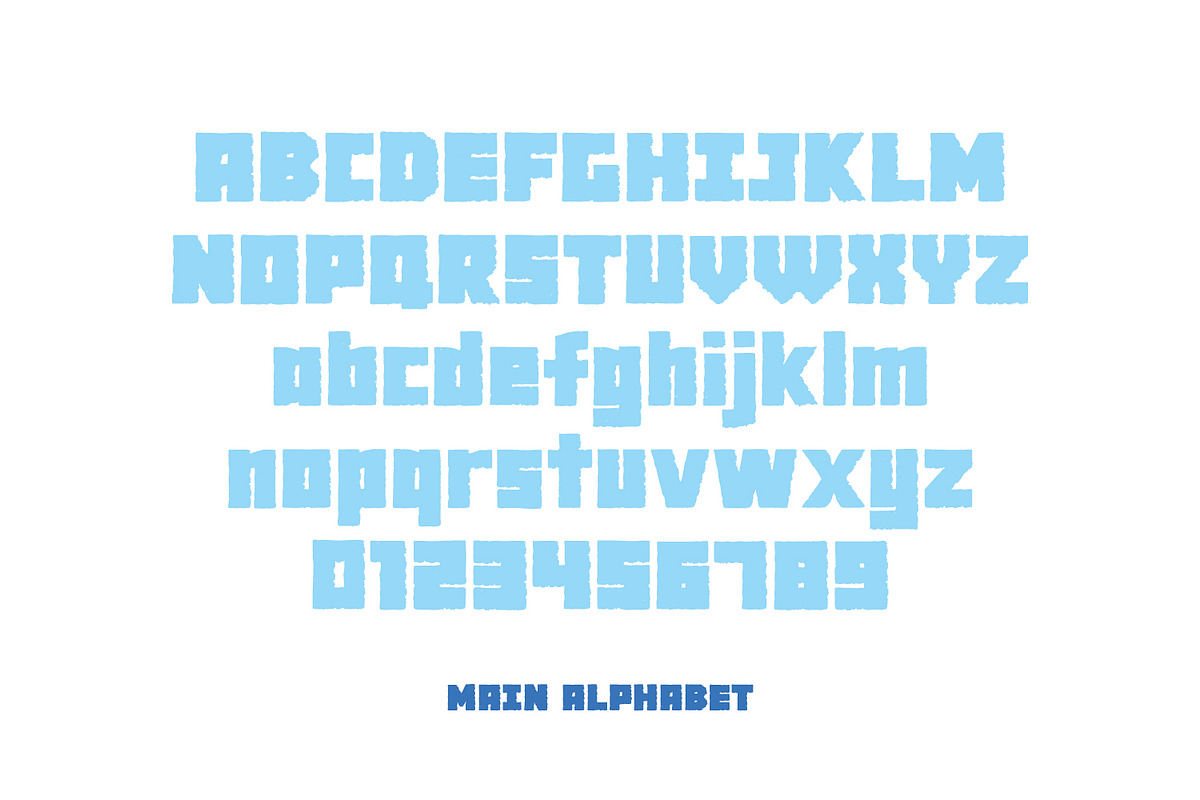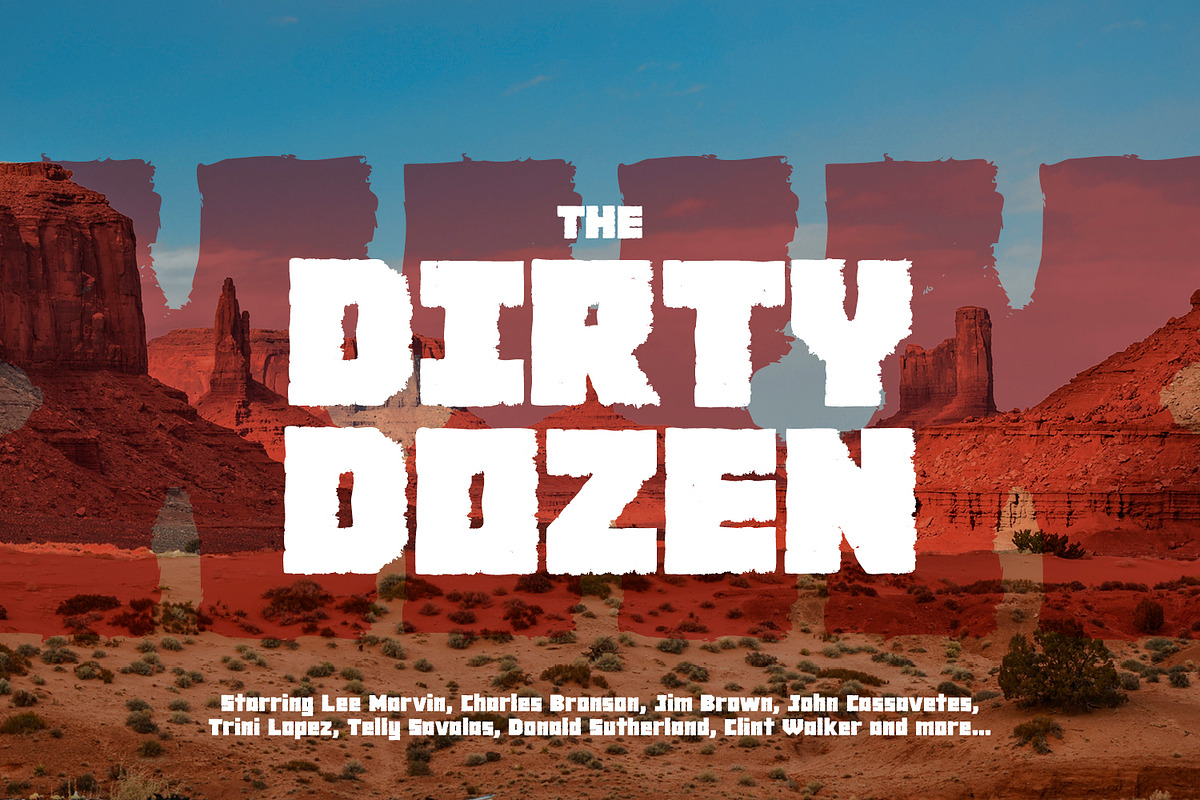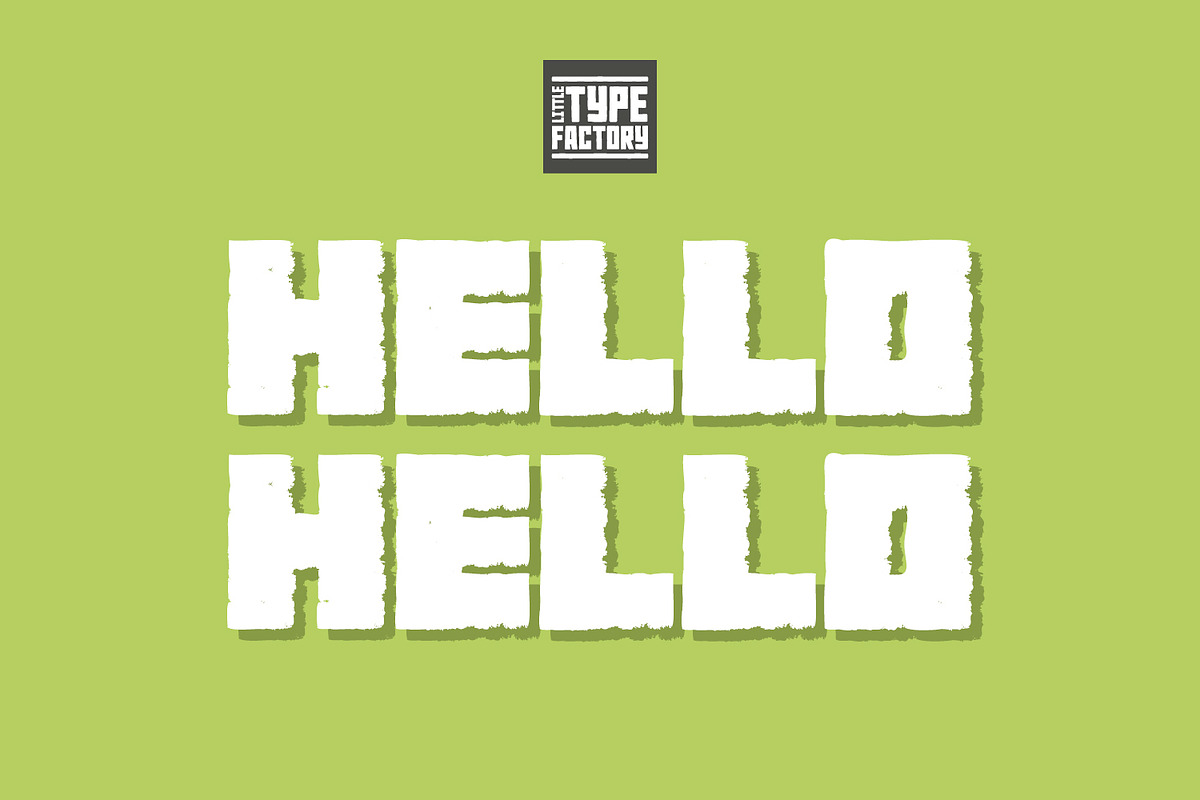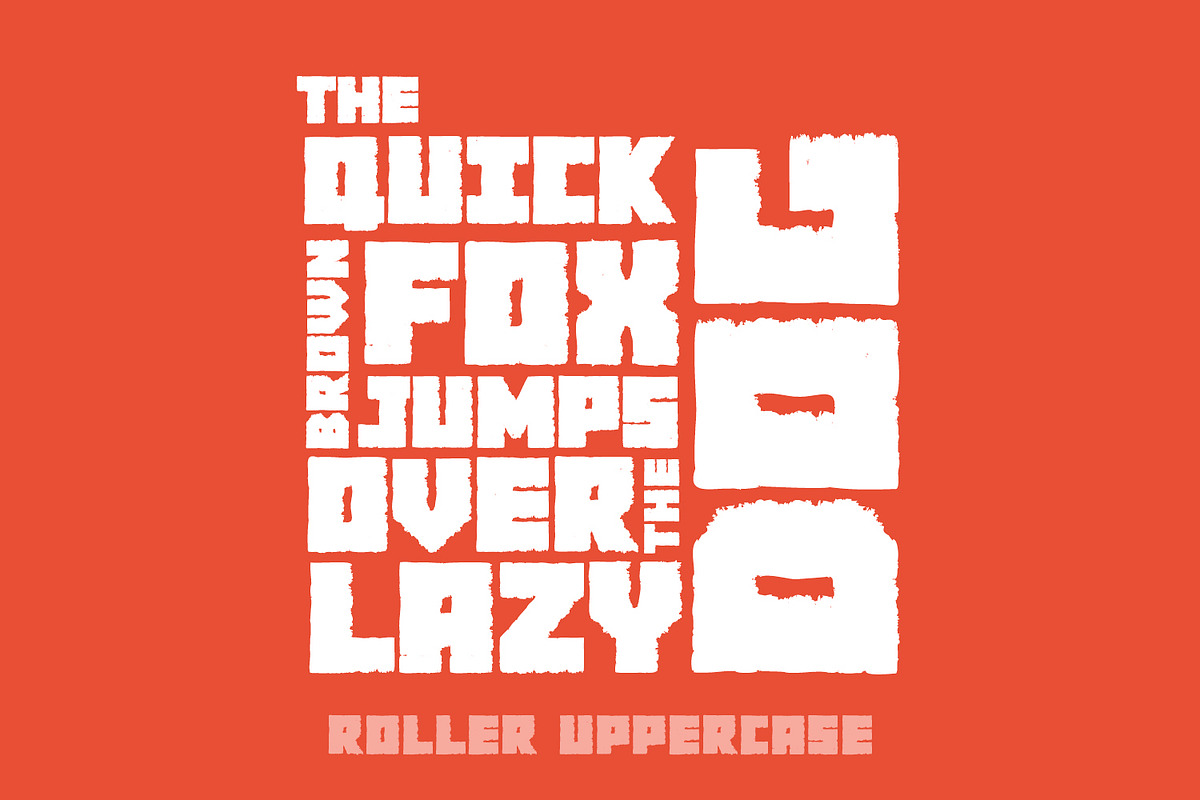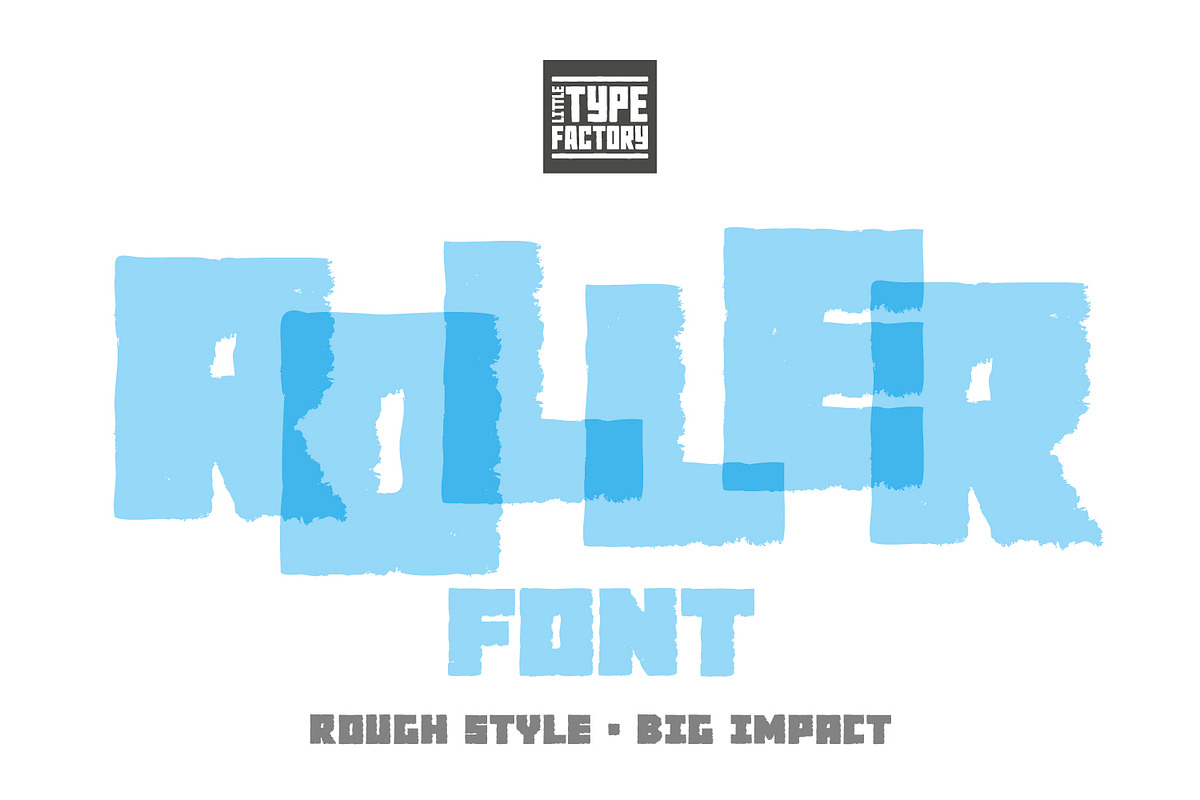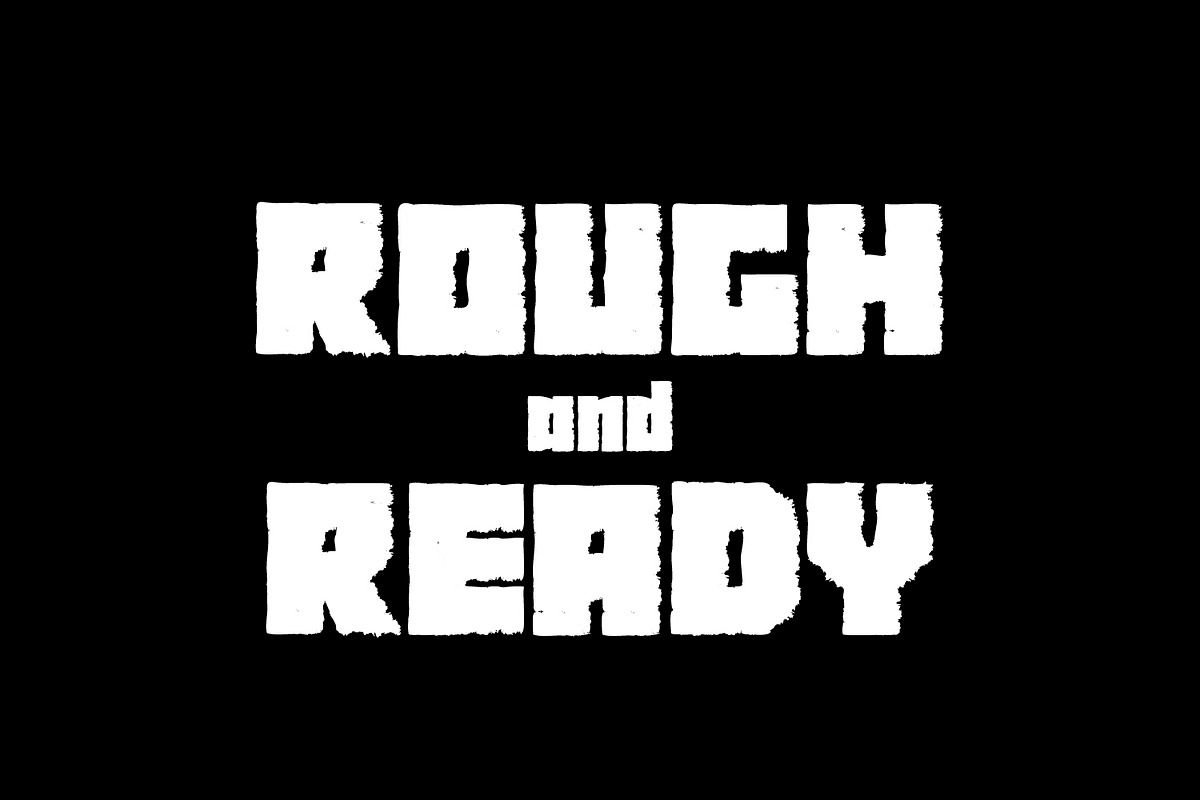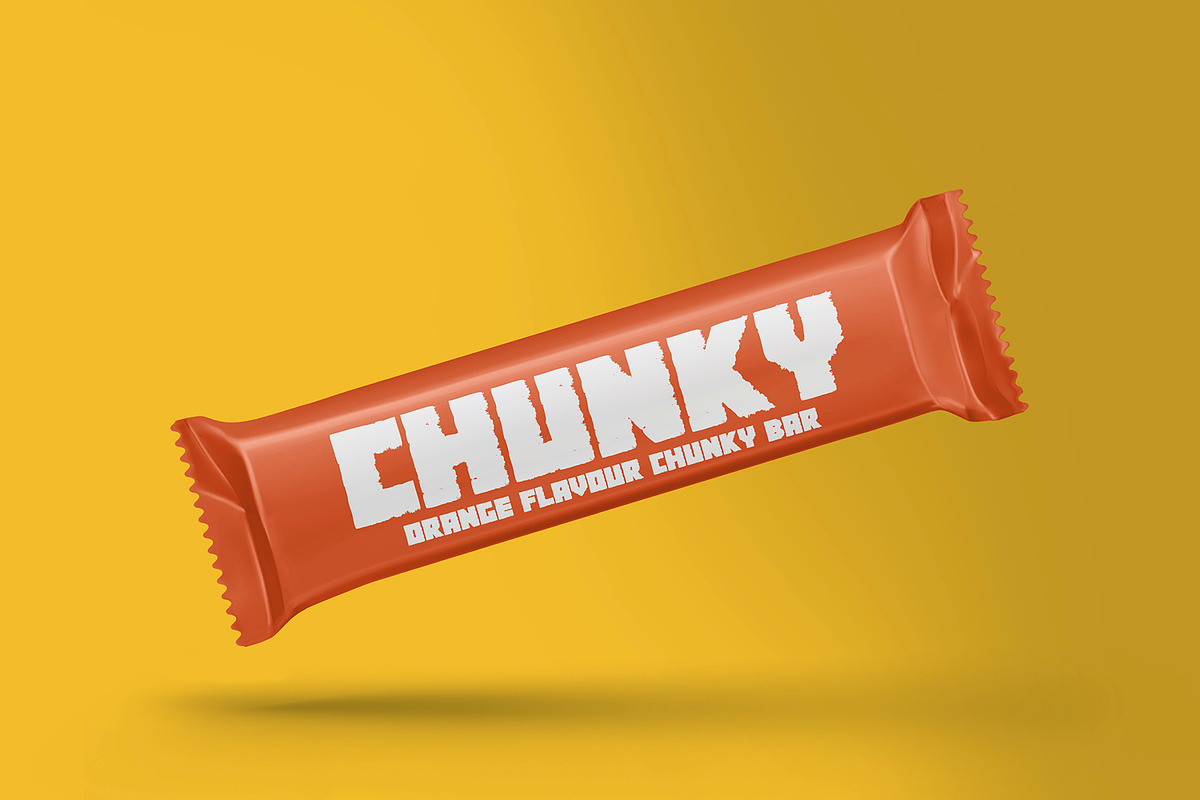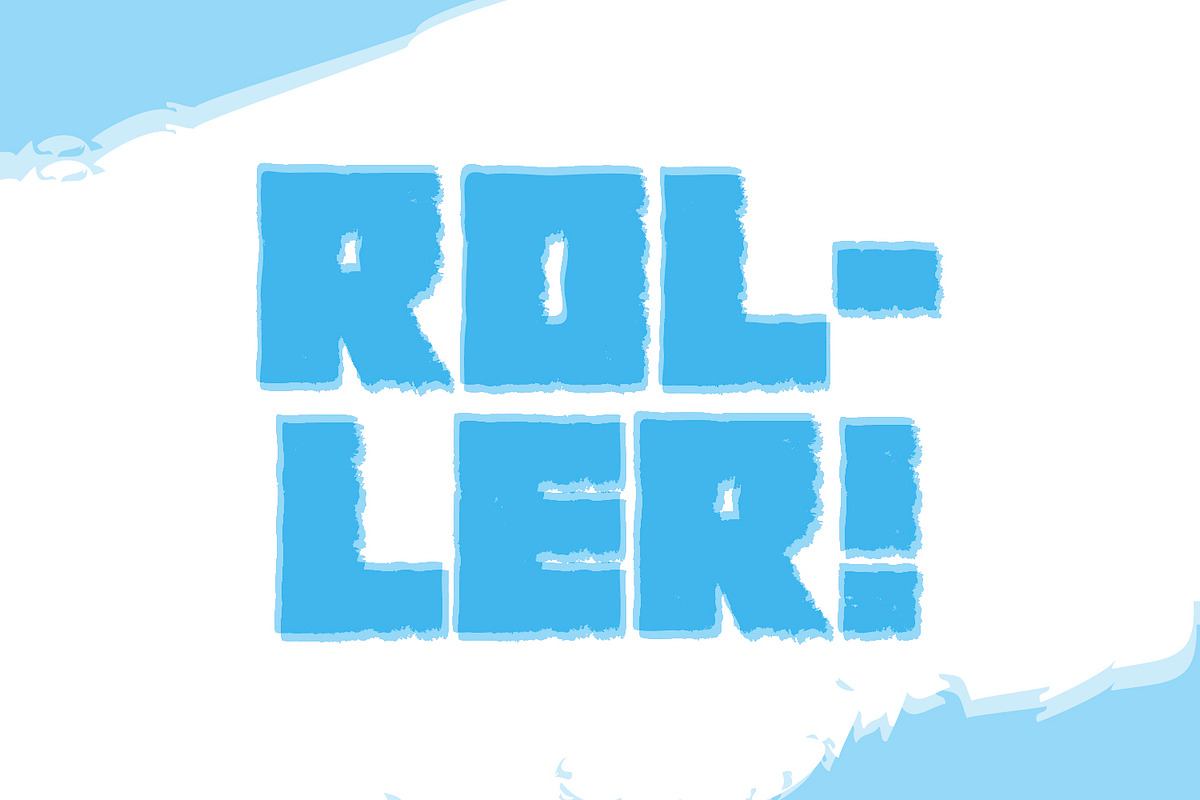
Roller - rough style big impact font
A very rough, big impact headline font. Ideal for large titles and display graphics. Can be used on all sorts of merchandising or to give a unique look to logos and branding. Eye-catching and bold on products too!
Full uppercase and lowercase alphabet with special characters. Also include full European glyphs.